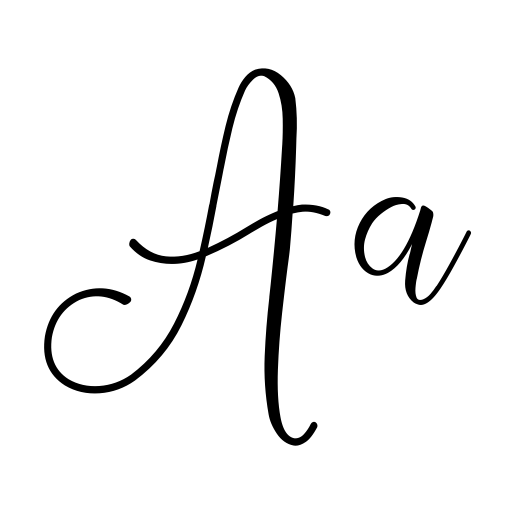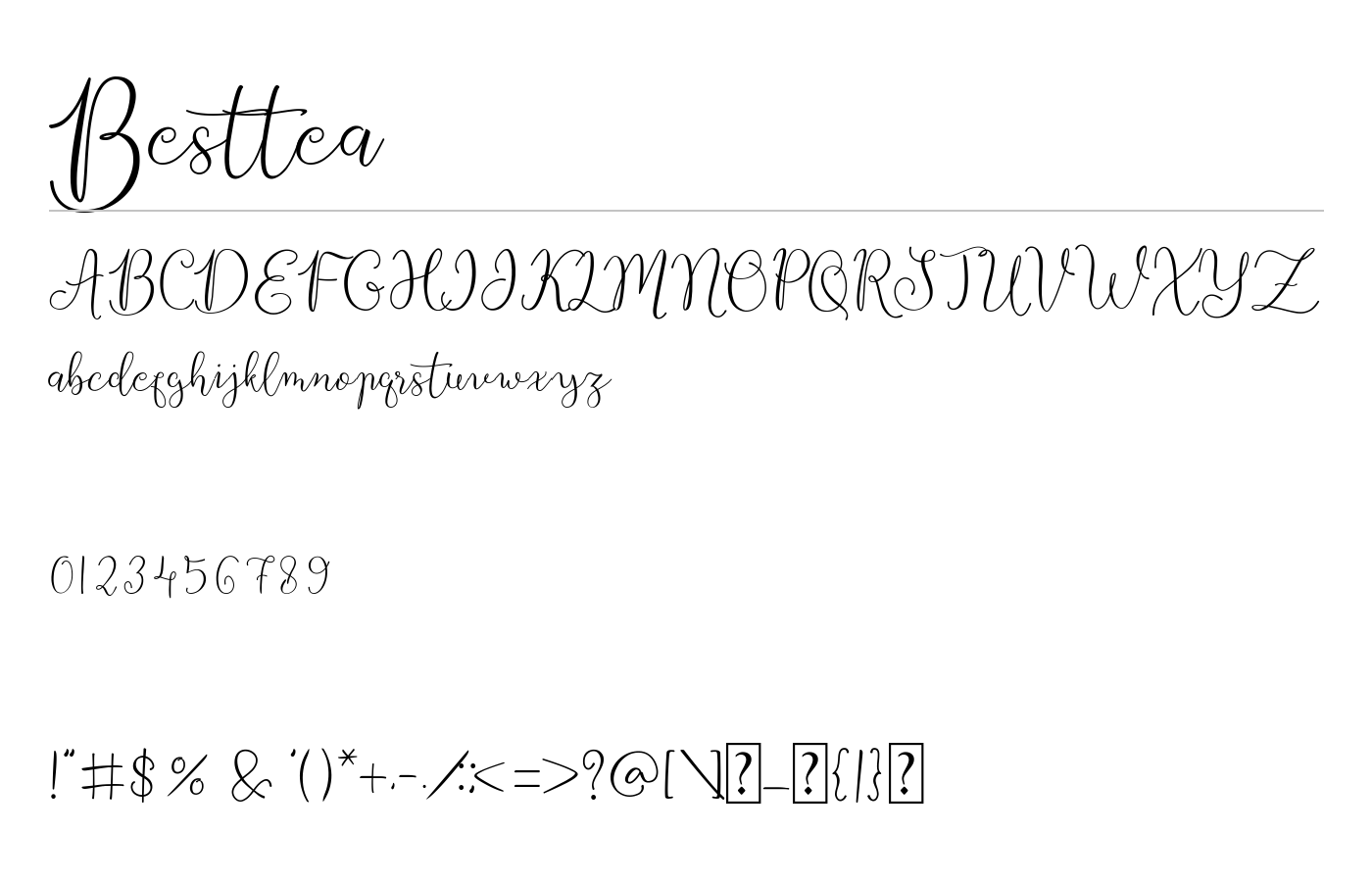
Besttea is an elegant script font with delicate, flowing strokes that create a graceful and sophisticated look. Its thin, handwritten style with whimsical touches makes it perfect for wedding invitations, branding, and any design seeking a personal, charming feel. This font shines in logos and headlines where a stylish, romantic touch is desired.
Besttea Font
About Besttea Font
| Font family | Besttea Font |
| Designer | Etigletters 2019 |